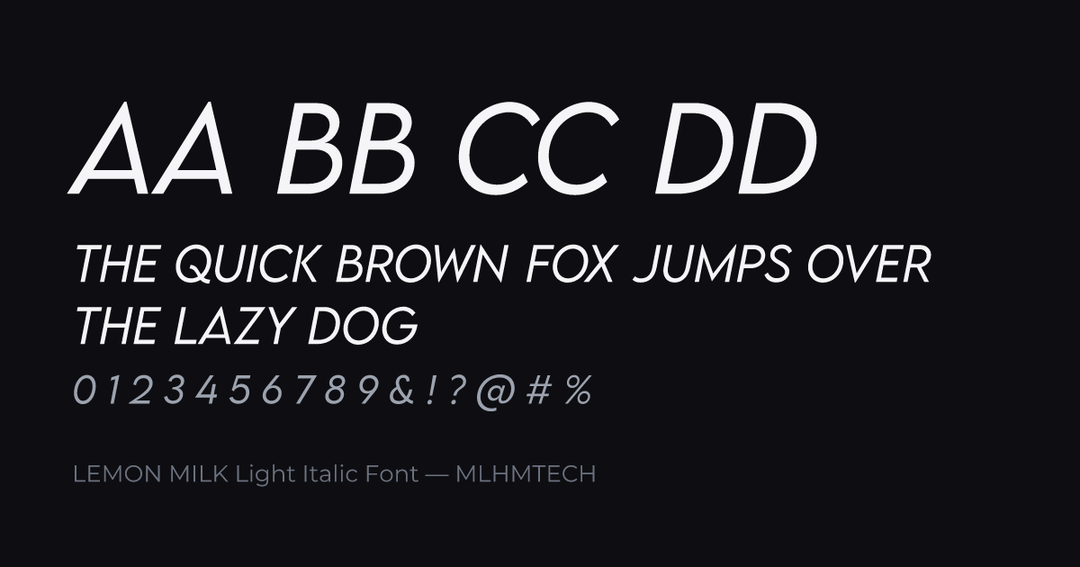
LEMON MILK Light Italic Font
LEMON MILK Light Italic is a sleek, modern sans-serif font with a subtle slant, ideal for adding elegance to titles and branding.
LEMON MILK Light Italic is a refined sans-serif typeface that combines geometric shapes with a light, airy weight and a gentle italic angle. Its clean lines and contemporary feel make it perfect for a wide range of creative projects, from logo design and branding to video titles and social media graphics.
Whether you're crafting a minimalist logo, an eye-catching poster, or a stylish video intro, LEMON MILK Light Italic adds a touch of sophistication. Its legibility at various sizes makes it a reliable choice for both headlines and body text.